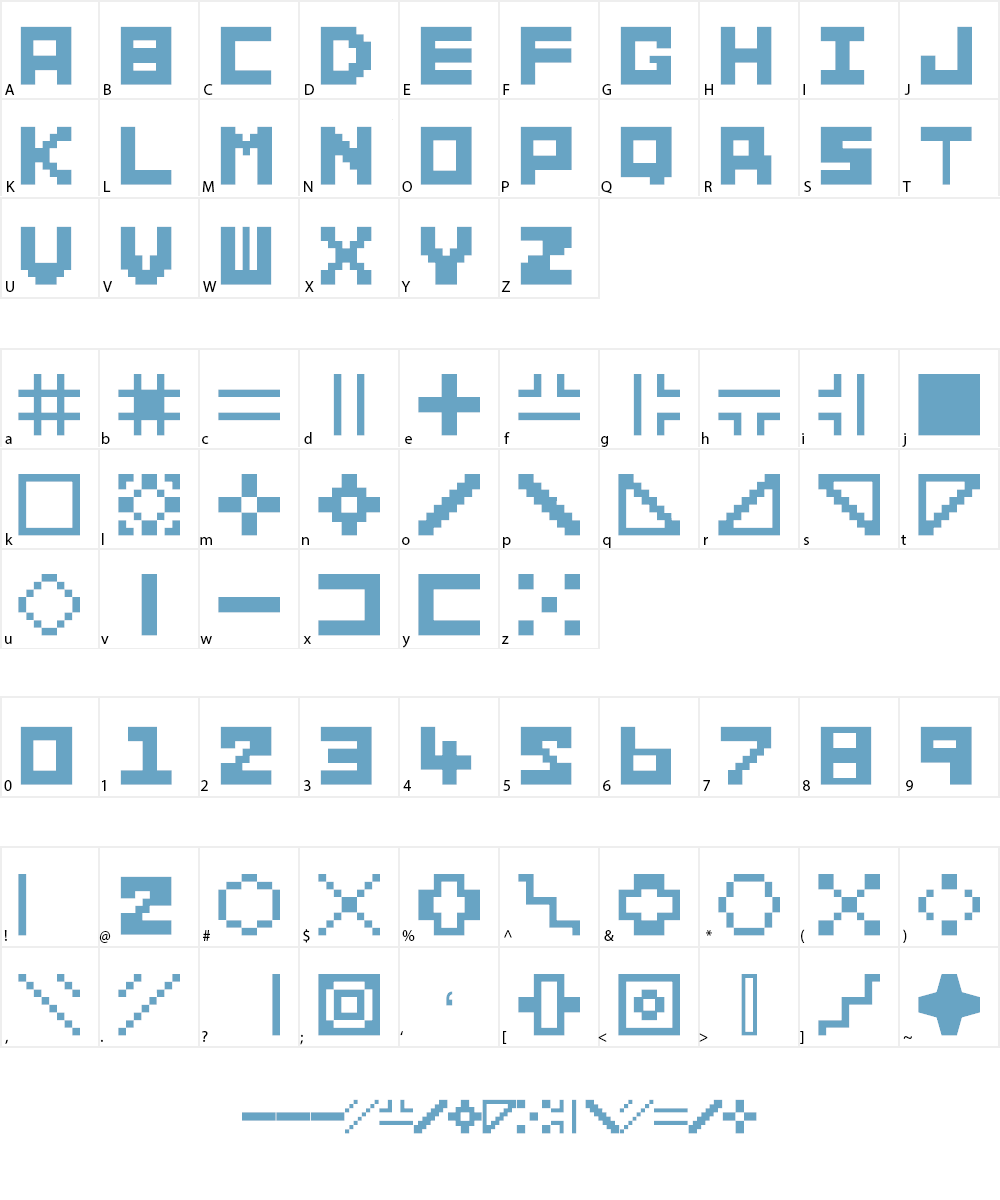
Builder1 is the first of my font sets designed to be used with a software program I've wrote called, Celtic Knot Builder (CKB). Builder1 is mono spaced and is one of many font sets I've created that let you make designs, pictures, mosaics and border art by using combinations of glyphs that fit together. My CKB program uses different layers, font sets and colors to create interesting monochrome, color, geometric and abstract art work. Please visit http://john-england.fineartengland.com to view some of my artwork.